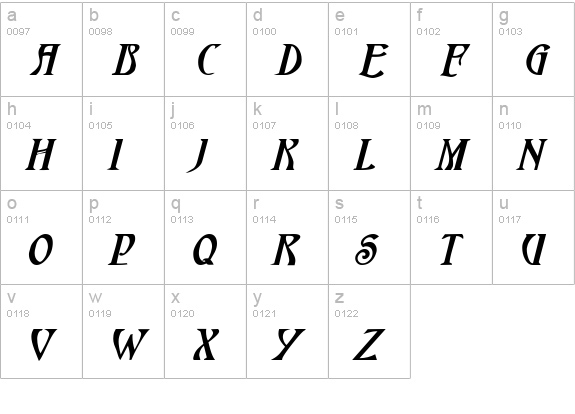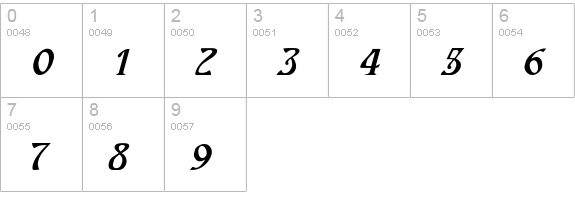
HardinCapsWide Bold Italic Font Details
HardinCapsWide Bold Italic is a strong, high-contrast, italic variant in the HardinCapsWide typeface family \xE2\x80\x94 well suited to headlines, attention-grabbing titles, and strong calls-to-action.
The HardinCapsWide Bold Italic font is a stunning display typeface that exudes power and elegance. Its bold and slanted characters command attention, making it perfect for headlines, titles, and logos that need to make a bold statement. The unique combination of wide letterforms and italic styling adds a touch of sophistication to any design. With its sharp edges and strong presence, HardinCapsWide Bold Italic demands to be noticed. Each letter is meticulously crafted to ensure maximum legibility and visual impact. Its strong, confident strokes create a sense of authority and professionalism, making it an ideal choice for corporate branding or any project that requires a strong visual identity. Despite its premium quality, HardinCapsWide Bold Italic is freely available for download at FontsMarket.com. This means that designers and creatives can enjoy this exceptional font without any financial burden. It's a fantastic opportunity to access a high-quality typeface that can elevate any design project. Whether you're working on a magazine layout, website design, or advertising campaign, HardinCapsWide Bold Italic is a versatile font that can adapt to a wide range of design needs. Its bold and italicized nature adds a touch of drama and flair to your typography, making your text stand out from the crowd. With HardinCapsWide Bold Italic, you have the freedom to unleash your creativity and create truly captivating designs. Its bold and slanted characters, combined with its wide letterforms, make it a distinctive and eye-catching choice. Download this font for free at FontsMarket.com and take your designs to the next level.